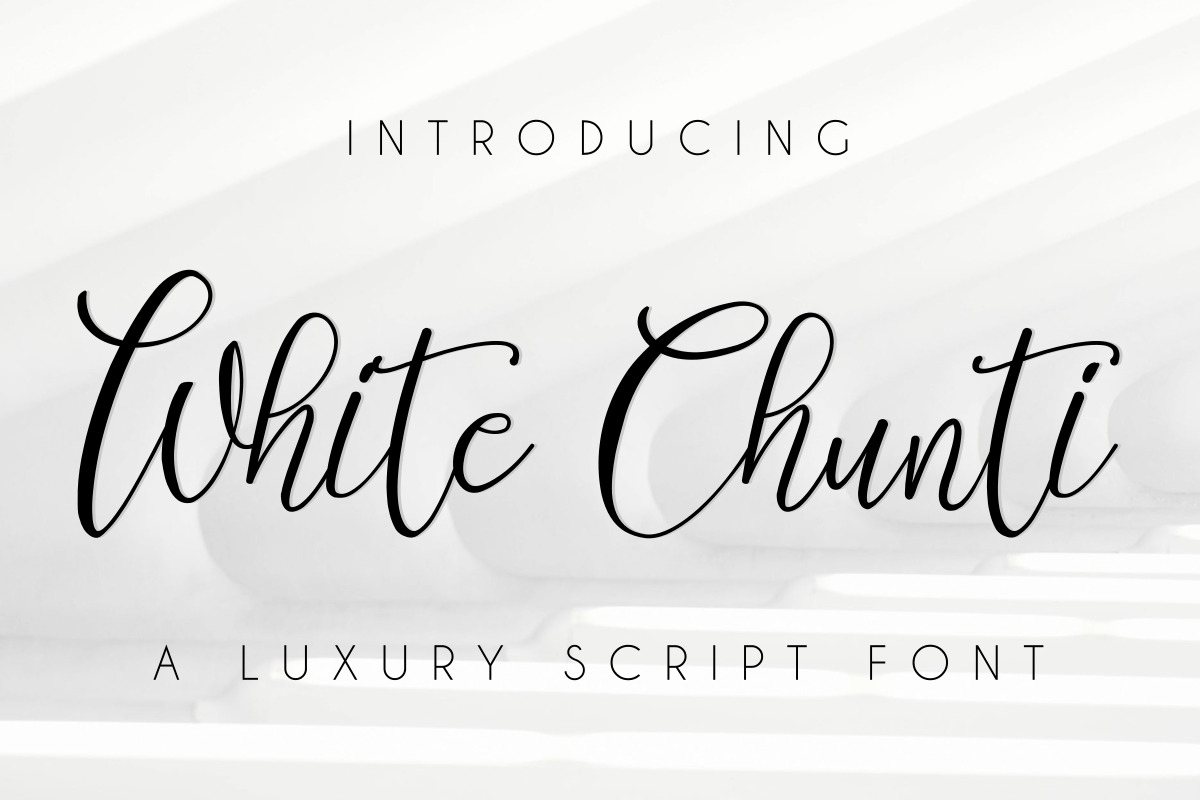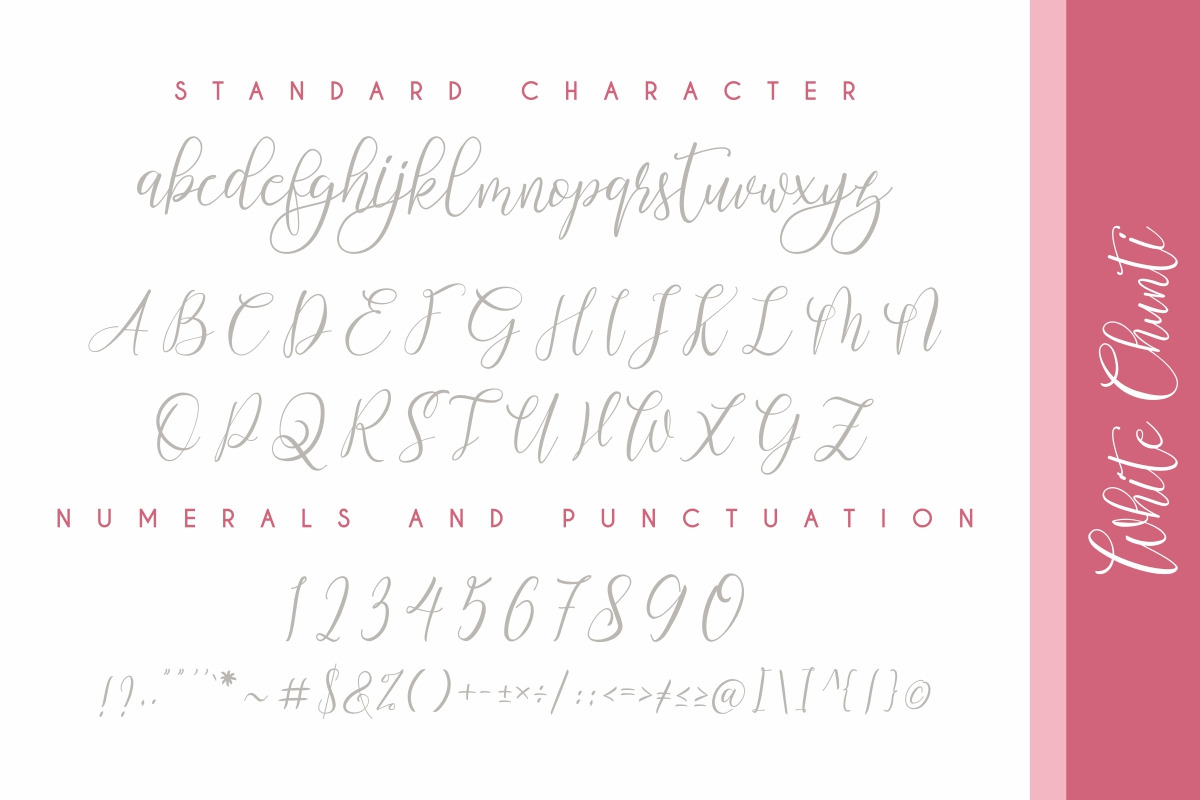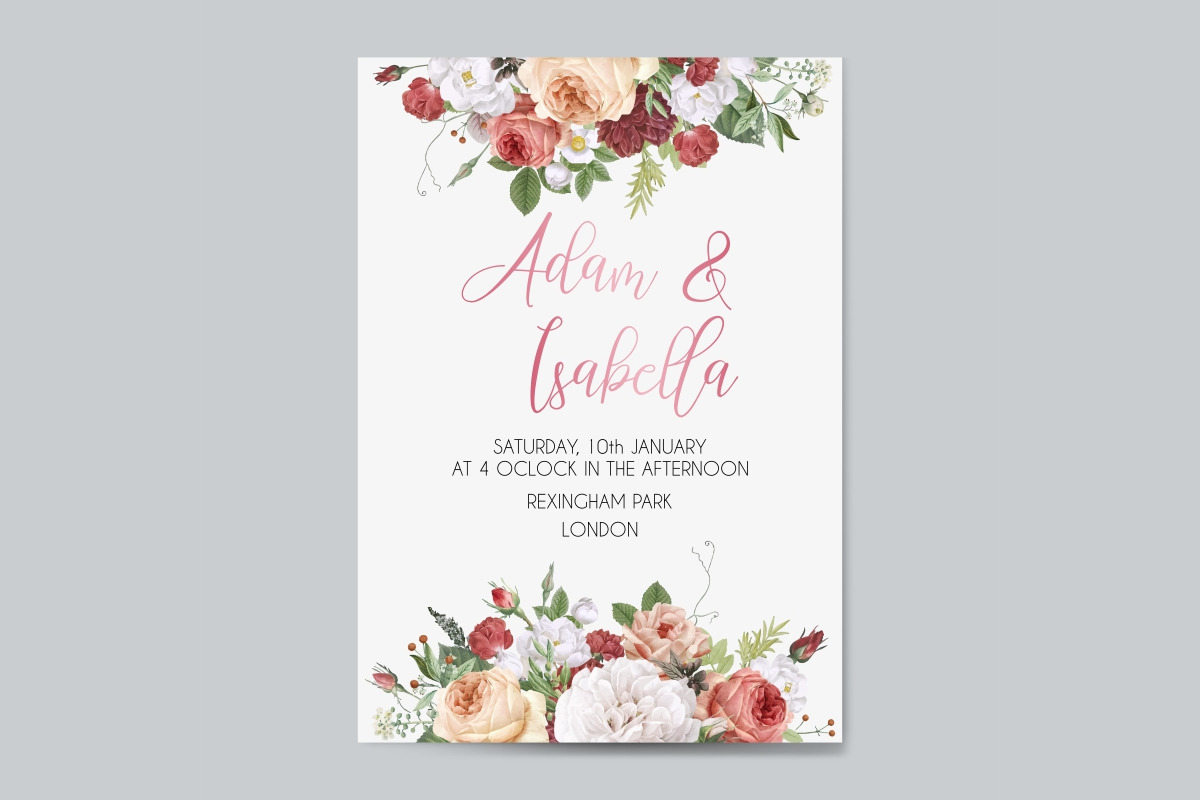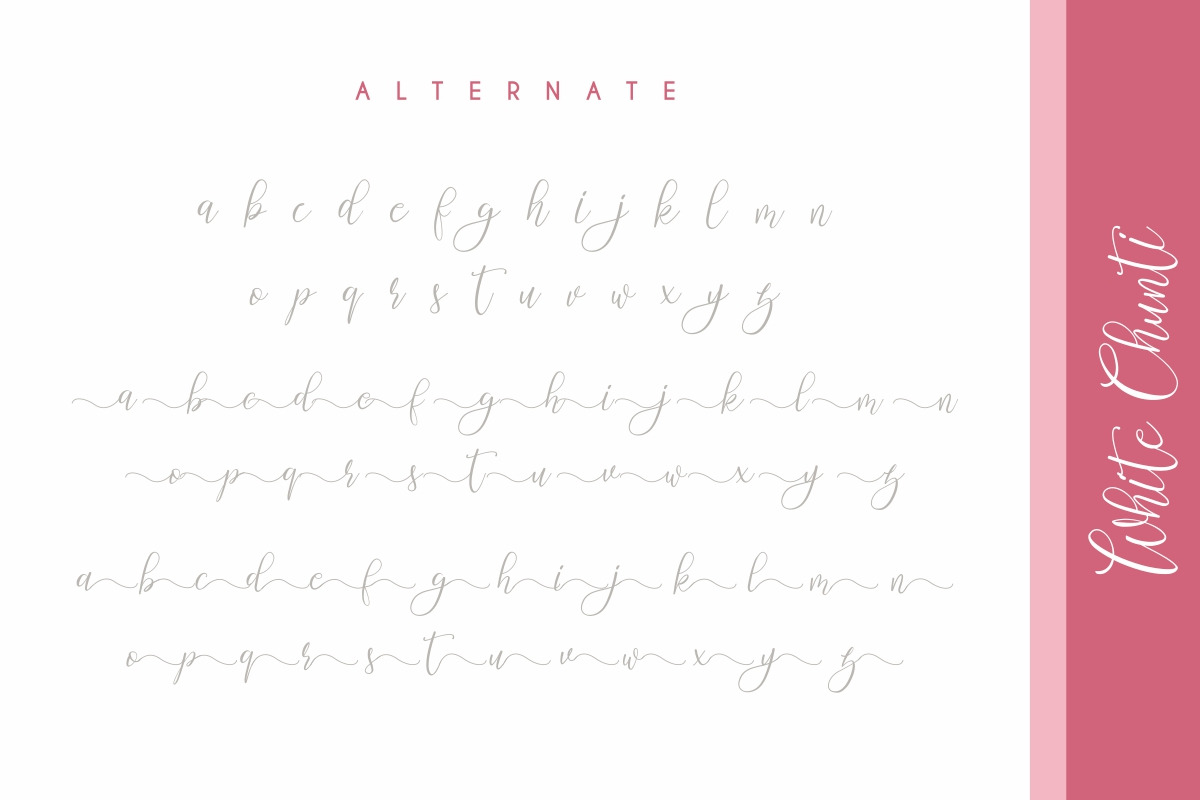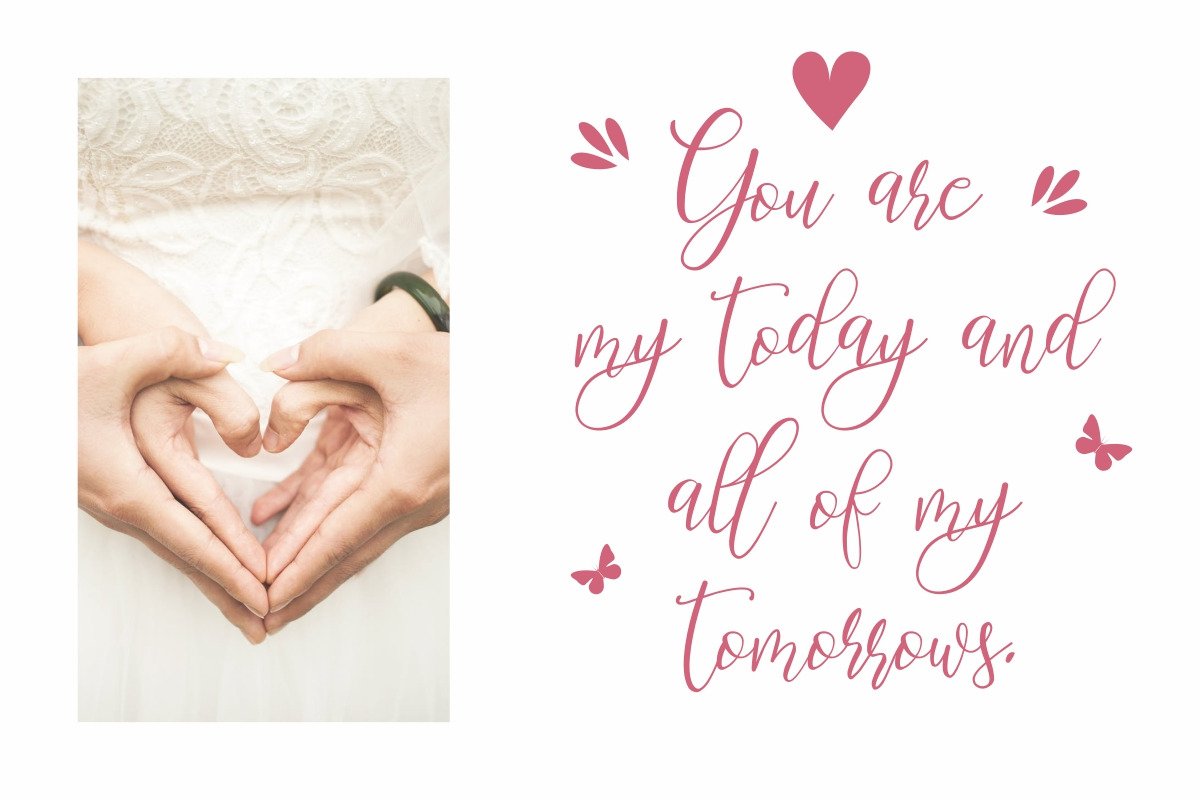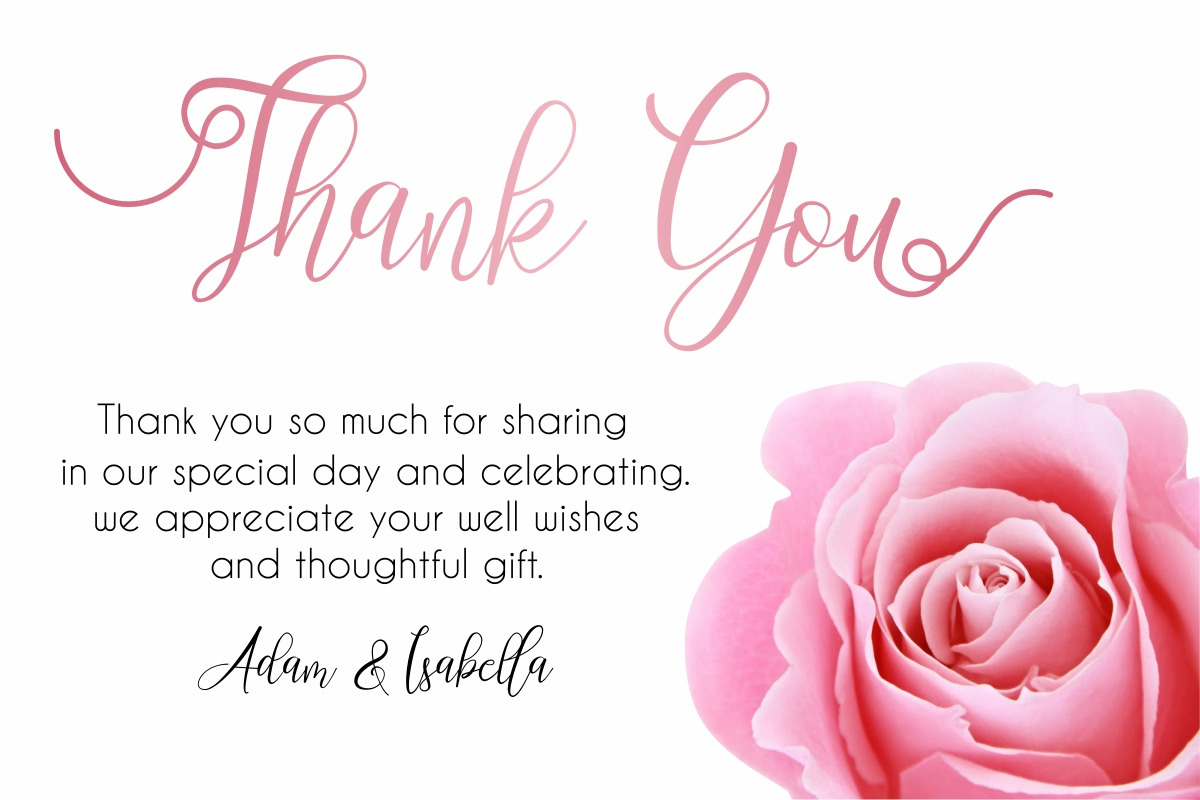
WhiteChunti Script Font
Introducing our newest font : WhiteChunti !
This is a new script calligraphy style font. It has a beautiful and stylish glyphs. Will be perfect for any designs projects.
WhiteChunti has Alternatives glyph on each style. It is also support multi languages
WhiteChunti is a great handwritting font which will be perfect for branding, logotype, wedding, advertising, promotion, photography or any other projects. It is so elegant, classic and beautiful.